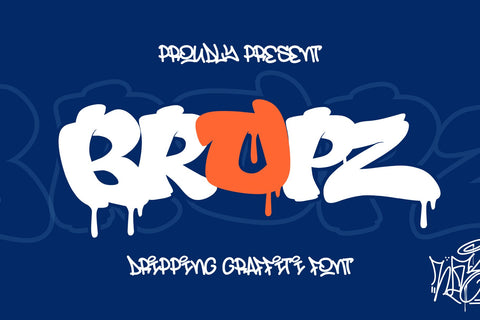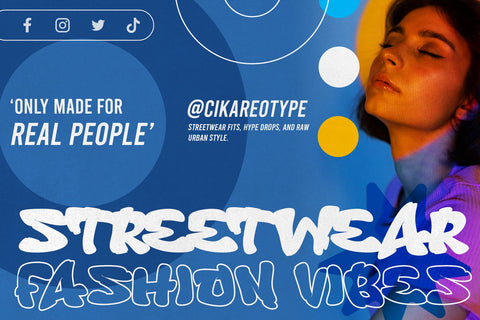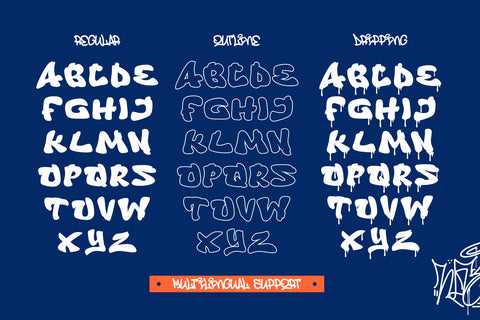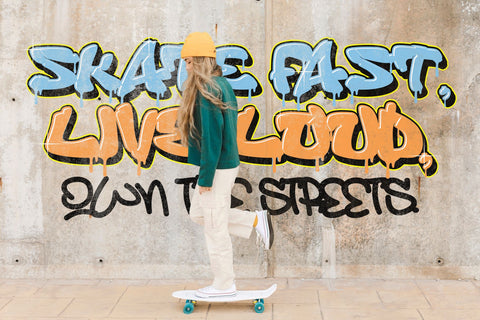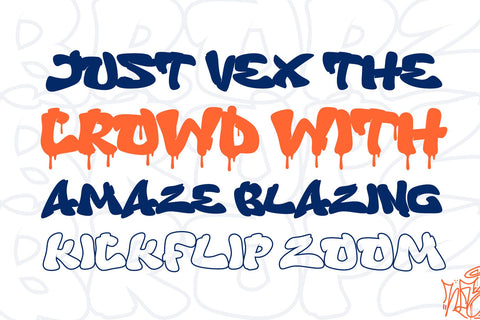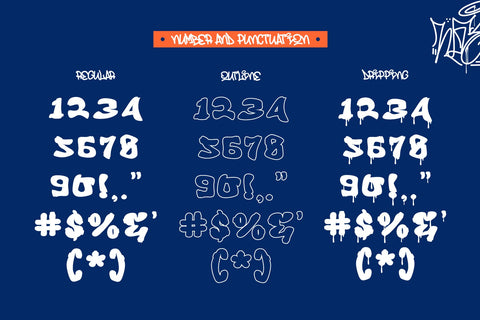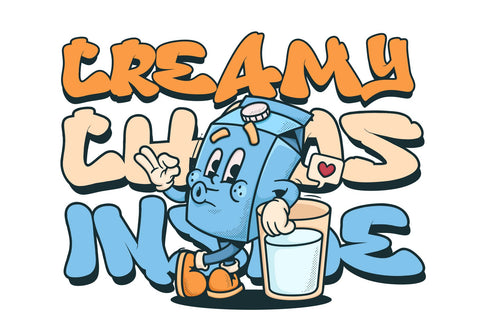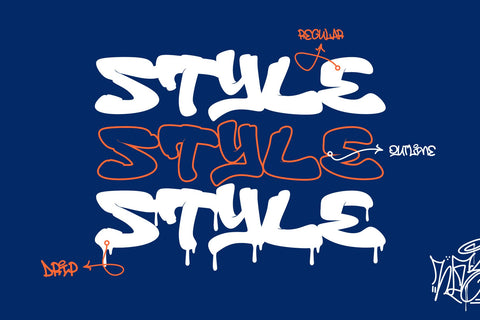
Bropz - Bold Dripping Graffiti Font | Urban Street Style & Outline Typeface
Bropz is a bold and energetic dripping graffiti font that brings street-style attitude to your designs. With thick, rounded strokes and expressive drips on every character, this font captures the raw, rebellious spirit of urban art. Bropz is perfect for posters, hip-hop album covers, sticker designs, streetwear, and any project that craves a youthful, edgy vibe. It comes in three styles: Regular with drip, Regular without drip, and Outline, giving you the flexibility to mix and match based on your creative needs. Whether for print or digital design, Bropz adds a loud and confident personality to every piece.